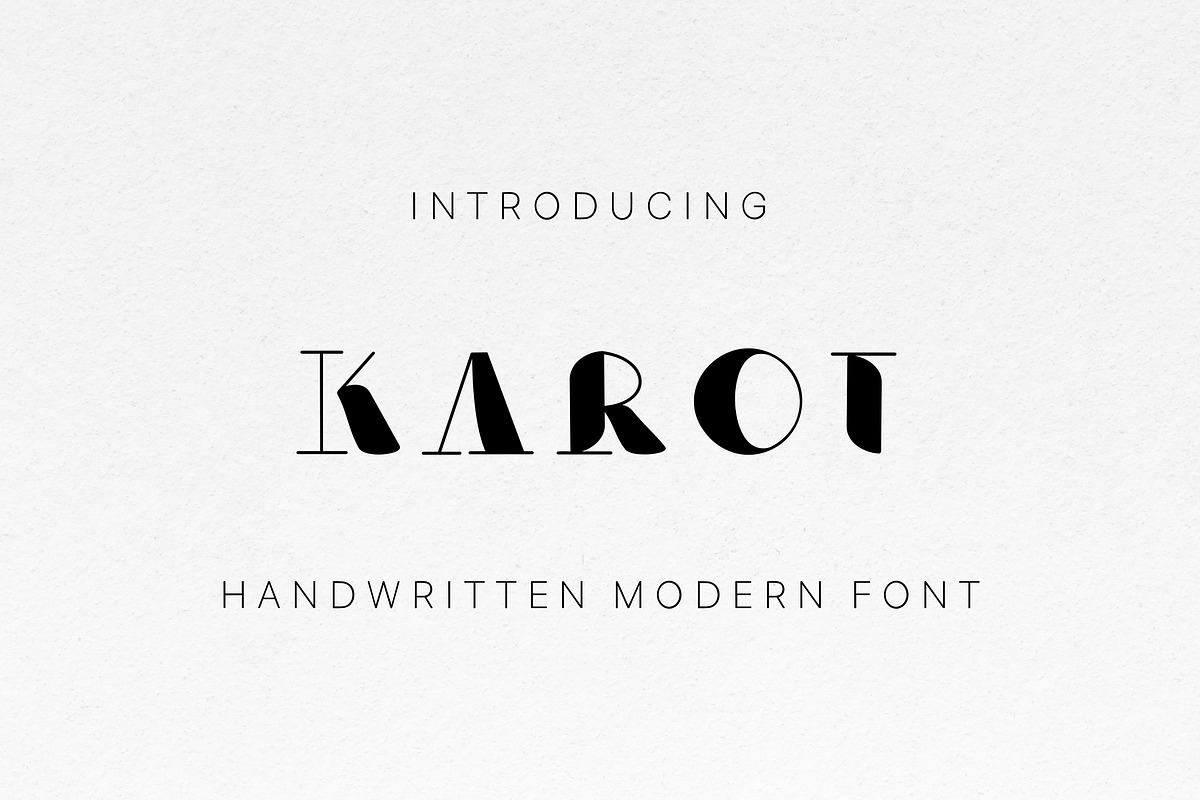
Karot - Modern serif font Free Download
Karot Modern Serif Font Free Download
Karot Modern Serif Font Free Download is a sleek and elegant typeface that blends timeless serif tradition with a fresh, contemporary twist. Featuring refined lines, high contrast strokes, and stylish letterforms, Karot is perfect for branding, editorial layouts, packaging, logos, fashion magazines, and upscale websites.
Its modern charm and sophisticated personality make it a go-to choice for designers seeking a balance of professionalism and creativity. Whether used in headlines or body text, Karot Modern Serif Font Free Download delivers clarity, elegance, and visual impact.
Designed for versatility, it works beautifully in both print and digital formats, bringing a high-end feel to any project.